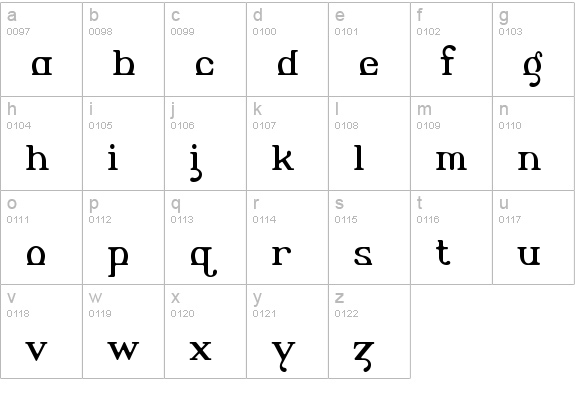
Alembic-RegularTwo is a versatile and modern font that exudes elegance and sophistication. With its clean lines and balanced proportions, this typeface is perfect for a wide range of design projects, from branding to editorial design. The well-crafted letterforms of Alembic-RegularTwo make it a timeless choice that will give your designs a touch of class. What sets Alembic-RegularTwo apart is not only its aesthetic appeal but also the fact that it is available for free. Yes, you read that right - this high-quality font can be downloaded at no cost from FontsMarket.com. Whether you are a professional designer looking to add a new font to your collection or a student working on a project, Alembic-RegularTwo is a fantastic option that won't break the bank. Don't miss out on this opportunity to elevate your designs with a premium font that won't cost you a dime.